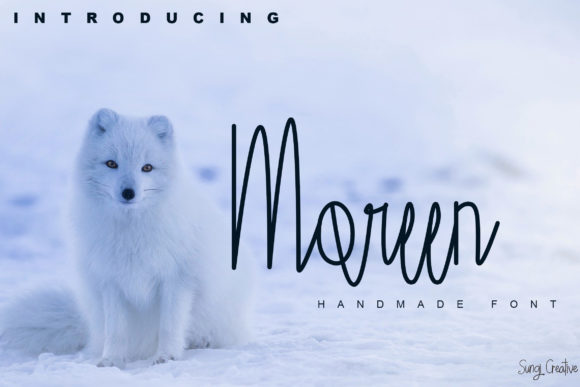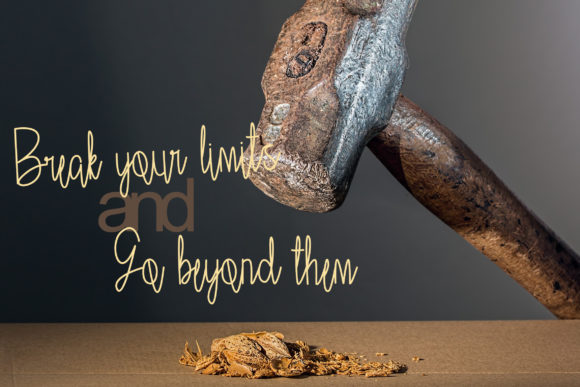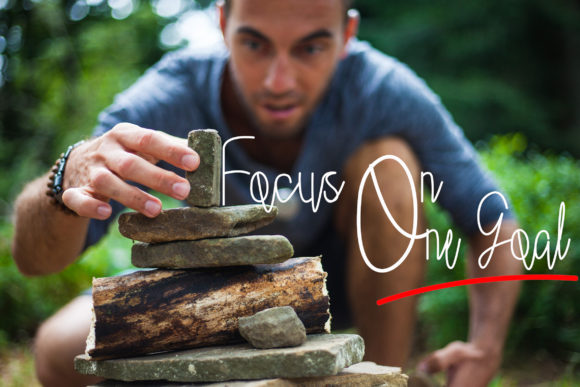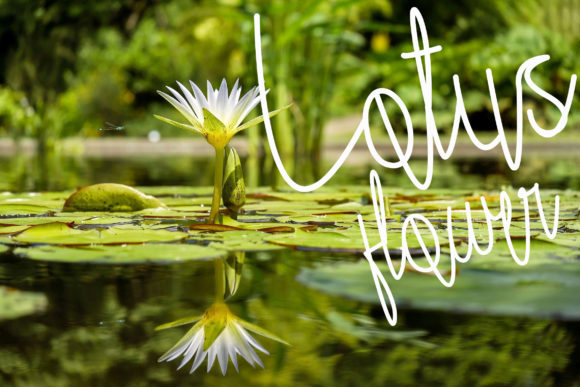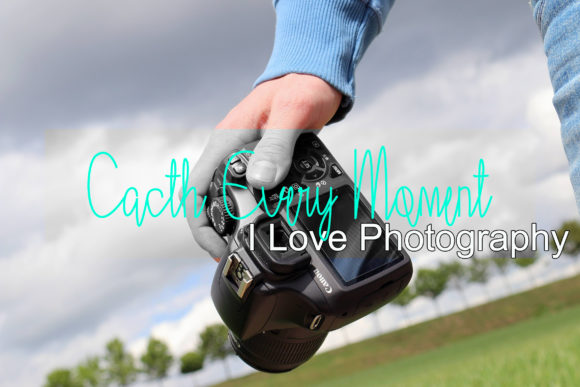
Moreen Font
About Moreen Font
Moreen is a handwritten script font. It is perfect for illustrations, posters, logos, book covers and much more!
Include this font in your next project to give it a personal touch.